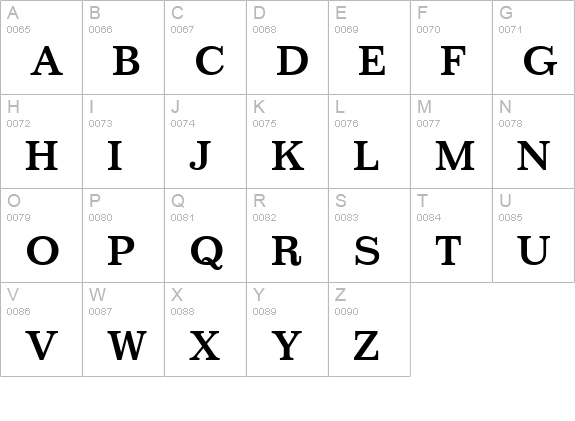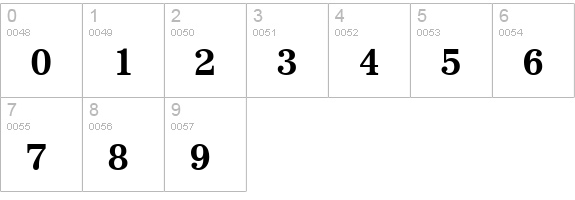
Classic SSi Bold is a strong, high-contrast variant in the Classic typeface family \xE2\x80\x94 well suited to headlines, attention-grabbing titles, and strong calls-to-action.
Classic SSi Bold font is a timeless and elegant typeface that exudes sophistication and style. Its bold and striking appearance makes it perfect for creating eye-catching designs and headlines. The font's clean lines and well-defined characters provide excellent readability, making it a versatile choice for various design projects. What's even better is that Classic SSi Bold font is available for free download at FontsMarket.com. By downloading this font, you can add a touch of classic elegance to your projects without any cost. Whether you're designing a logo, poster, or packaging, Classic SSi Bold font is sure to make a bold statement and elevate your design to the next level. Don't miss out on this fantastic opportunity to enhance your creative projects with this exceptional font. Download Classic SSi Bold font now and unleash your creativity!